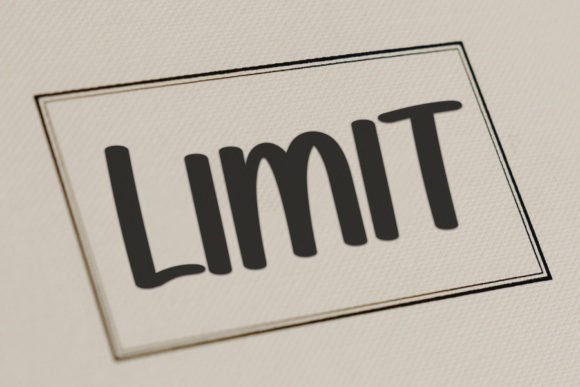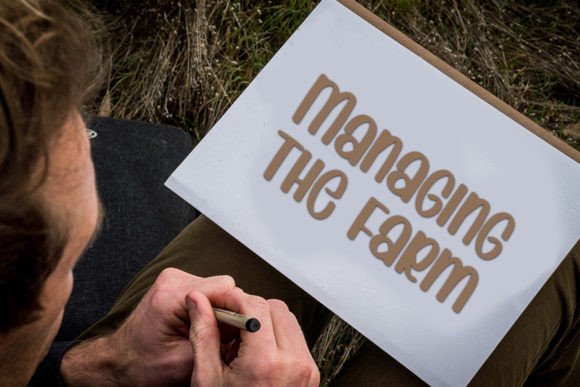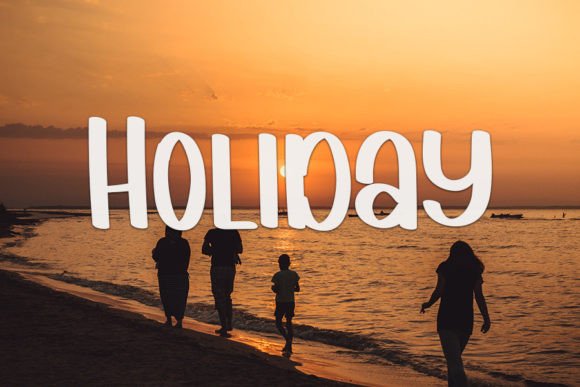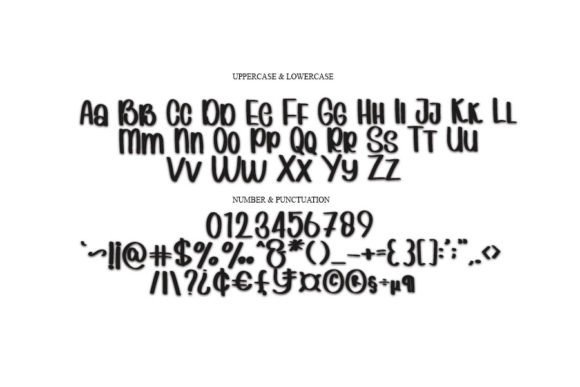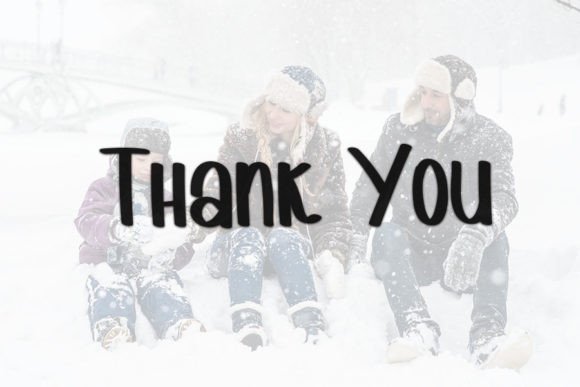
Discover the Perfect Blend of Classic Charm and Modern Flair: Family Font
As a designer, there’s nothing quite like the thrill of bringing a project to life. The blank page stares back at you, waiting for your creative spark to ignite. You start brainstorming, sketching out ideas, and experimenting with typography – and that’s when you stumble upon it: the perfect font that elevates your design to the next level. For many, that font is Family Font, a beautiful handwritten typeface that exudes modern sophistication and timeless elegance.
Family Font is more than just a pretty face; it’s a versatile tool designed to add depth and character to your projects. With its balanced and varied form, it’s perfect for everything from headings and titles to body text and quotes. Whether you’re working on a branding project, a blog post, or a social media campaign, Family Font is sure to bring a touch of personality and whimsy to your design.
Family Font Key Features
- Font Family: Family Font is a sans-serif font family designed for readability and versatility.
- Unique Characteristics: Family Font features a unique blend of modern and classic elements, making it suitable for both contemporary and traditional designs.
Family Font Review
When I first laid eyes on Family Font, I thought I had stumbled upon the perfect solution for designing a warm and welcoming atmosphere. And, for the most part, I was right! ✨ The font is incredibly versatile and can be used for a wide range of projects, from children’s books to family newsletters. It’s perfect for creating a sense of comfort and familiarity.
One of the standout features of Family Font is its excellent legibility, even at smaller font sizes. This makes it a great choice for body text or headlines. Additionally, the font’s rounded edges and subtle curves give it a friendly, approachable feel that’s hard to resist. ✨
Limitsations
- ⚠️ Limited font weights: While Family Font has a nice range of styles, it’s not as extensive as some other fonts on the market. This can make it difficult to create a consistent look and feel across different elements of a design.
- ⚠️ Limited language support: Family Font is primarily designed for use in English-speaking countries, which can make it less suitable for international projects.
Overall, I think Family Font is a great choice for designers looking to create a warm and welcoming atmosphere. While it has its limitations, its versatility and excellent legibility make it a solid addition to any design library. ✨
The “Family Font” is a versatile font that can be used for a variety of purposes, including:
- Creating a cohesive brand identity
- Designing wedding invitations or other formal documents
- Adding a touch of elegance to digital products or websites